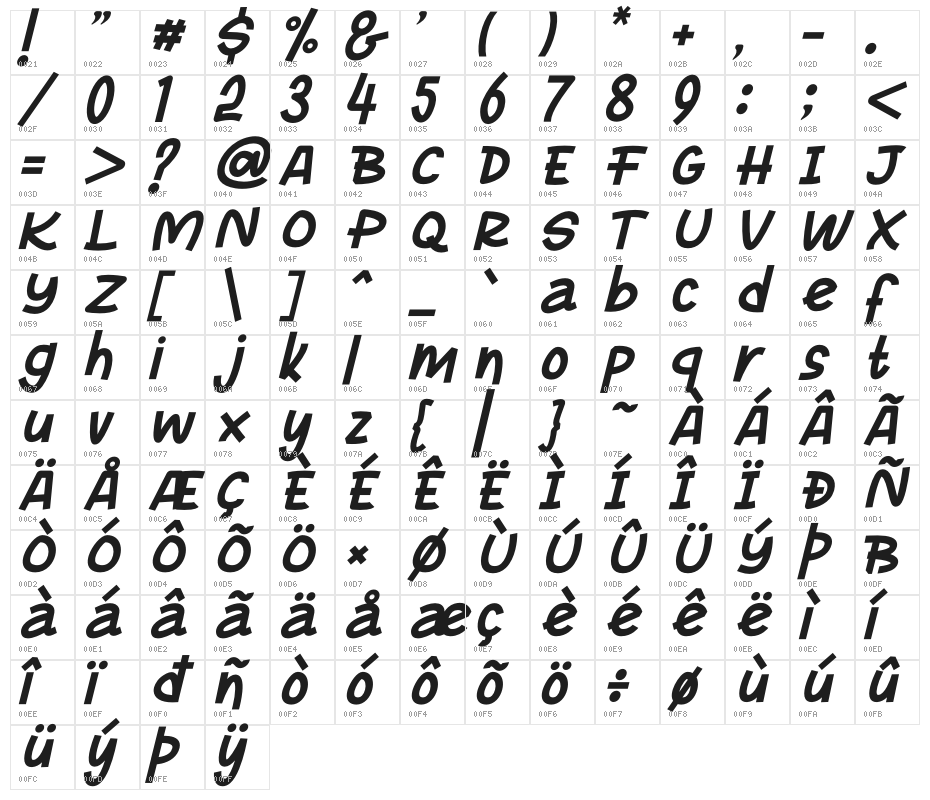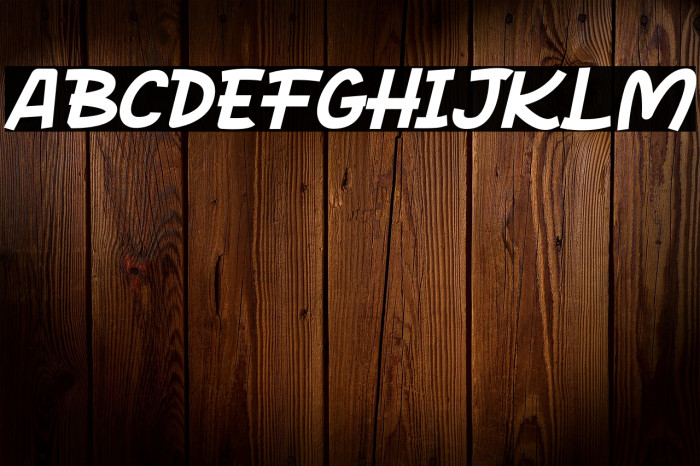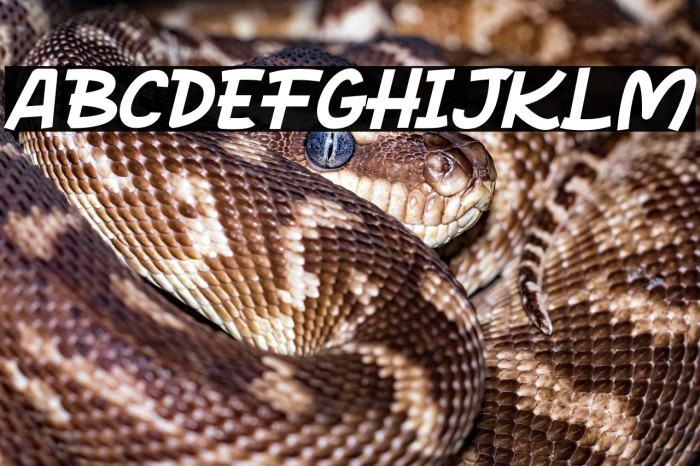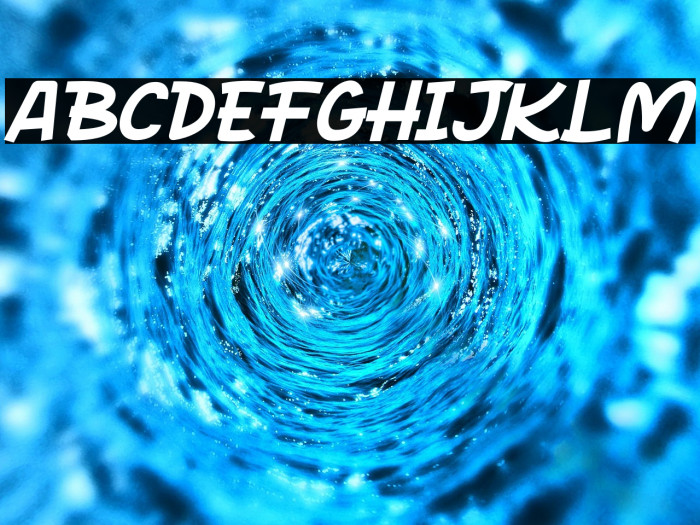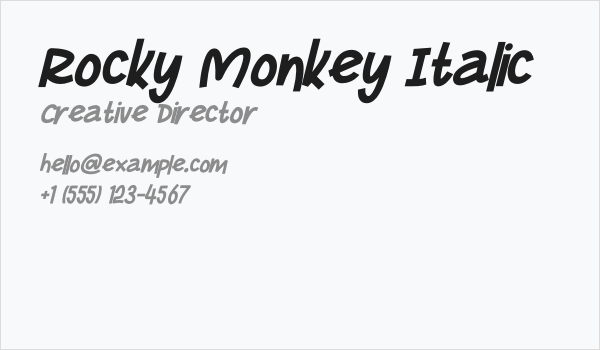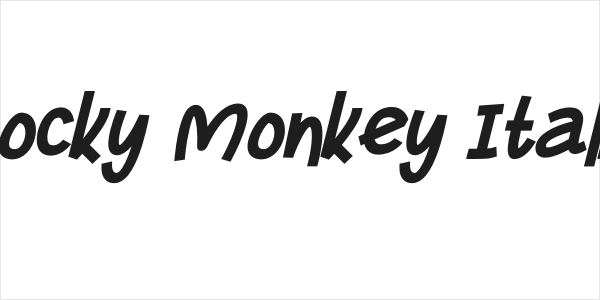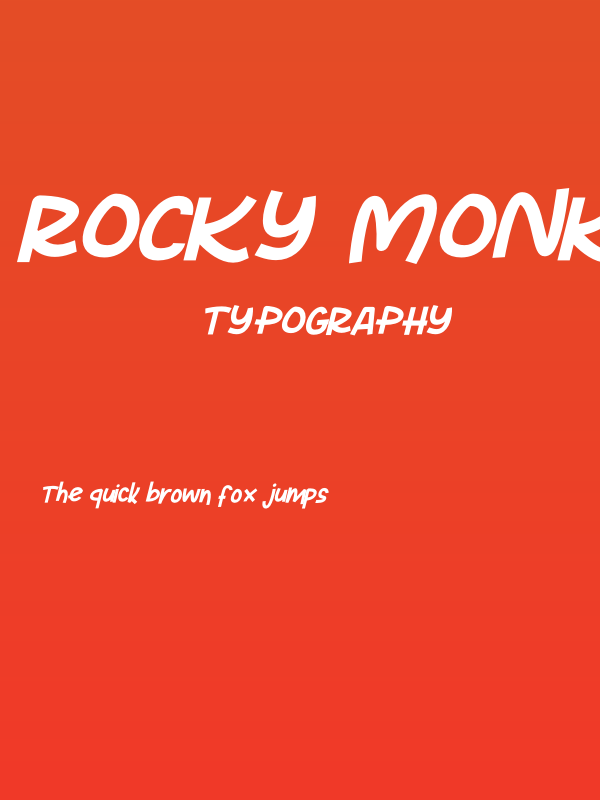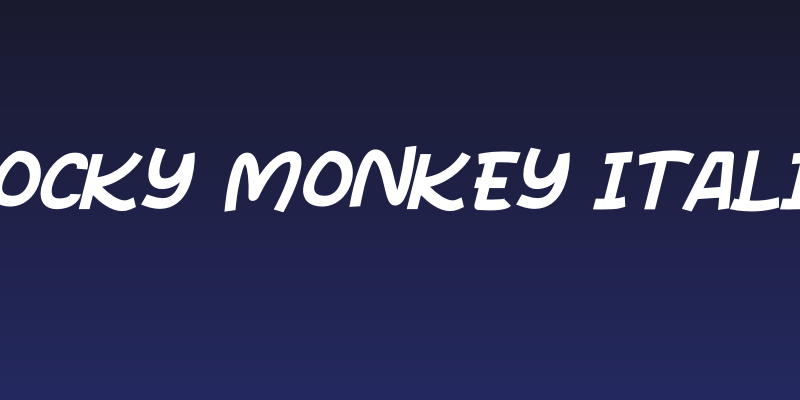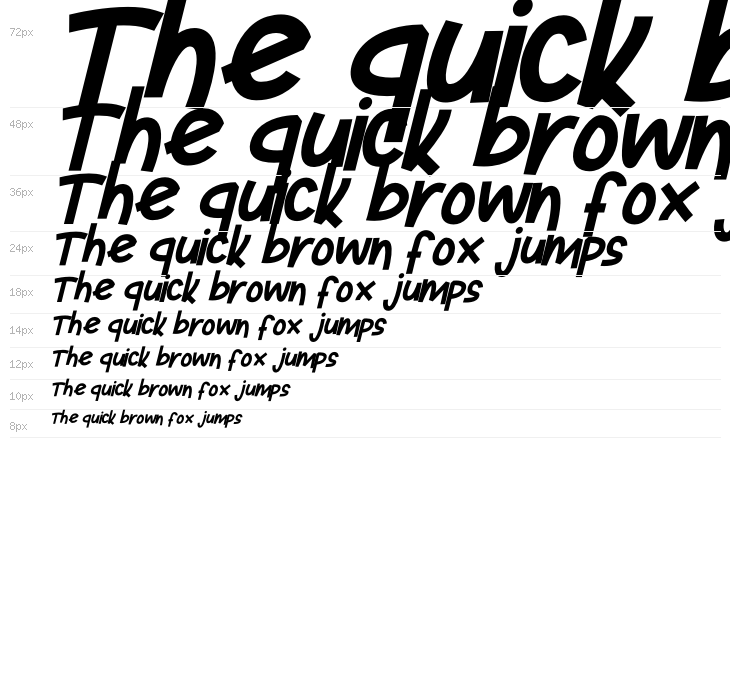
Rocky Monkey Italic Font
Rocky Monkey Italic Description
This font exhibits a bold and dynamic style with a strong italic slant, giving it a sense of movement and energy. The characters are thick and rounded, providing a friendly yet assertive appearance. The uppercase and lowercase letters maintain a consistent style, with smooth curves and a slightly condensed form. Numbers and special characters follow the same design principles, ensuring uniformity across all glyphs. The font's playful and energetic nature makes it suitable for projects that require a lively and engaging visual impact.
| Proposed Projects | Ideal for sports branding, dynamic posters, playful packaging, and energetic social media graphics. |